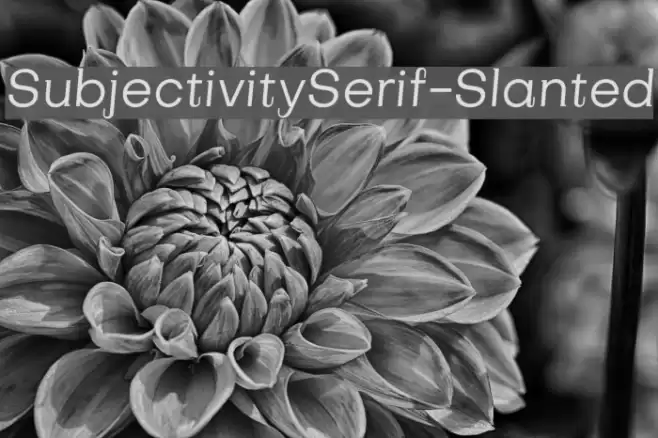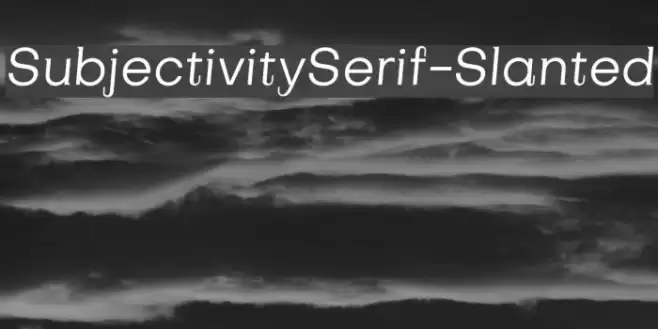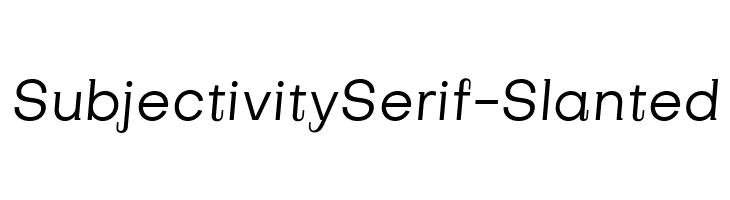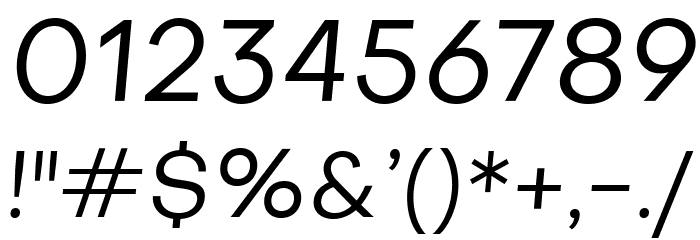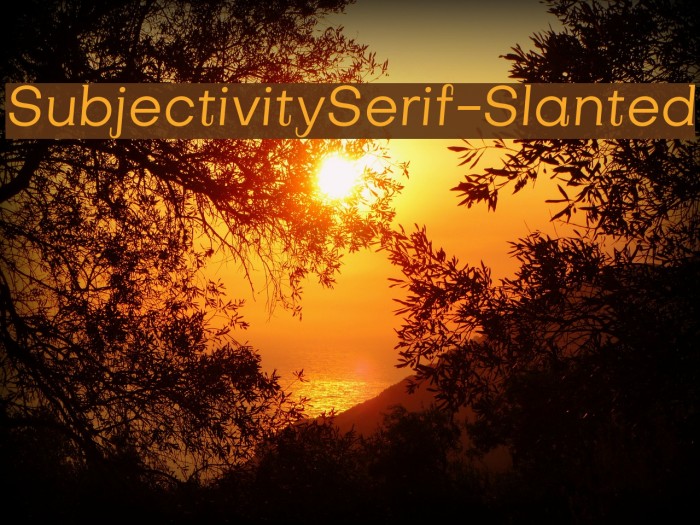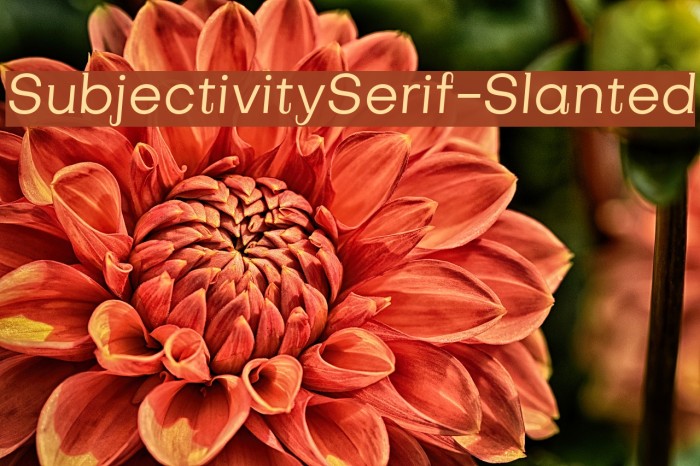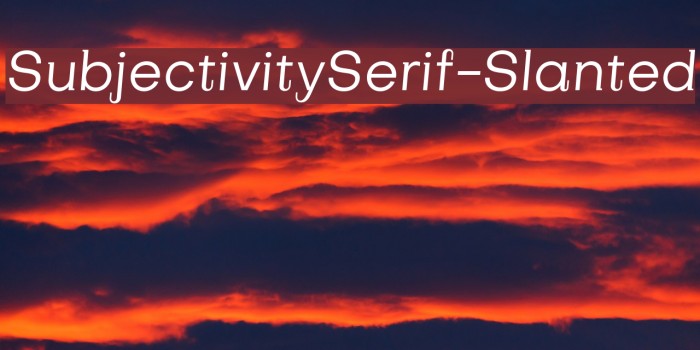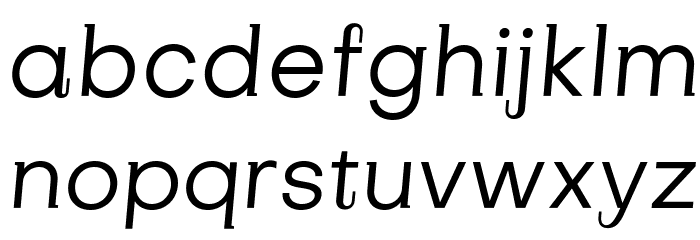
SubjectivitySerif-Slanted Font
SubjectivitySerif-Slanted Description
This font features a clean and modern design with a subtle slant, giving it a dynamic and elegant appearance. The characters are well-proportioned, with a slight emphasis on the curves, creating a harmonious flow across the text. The uppercase letters maintain a consistent height, while the lowercase letters exhibit a gentle slope, adding to the overall sophistication. The numerals are clear and distinct, ensuring readability. Special characters are crafted with precision, maintaining the font's cohesive aesthetic. This font is versatile, suitable for both digital and print media.
A modern, slanted serif font with elegant curves and excellent readability from Uncategorized fonts.